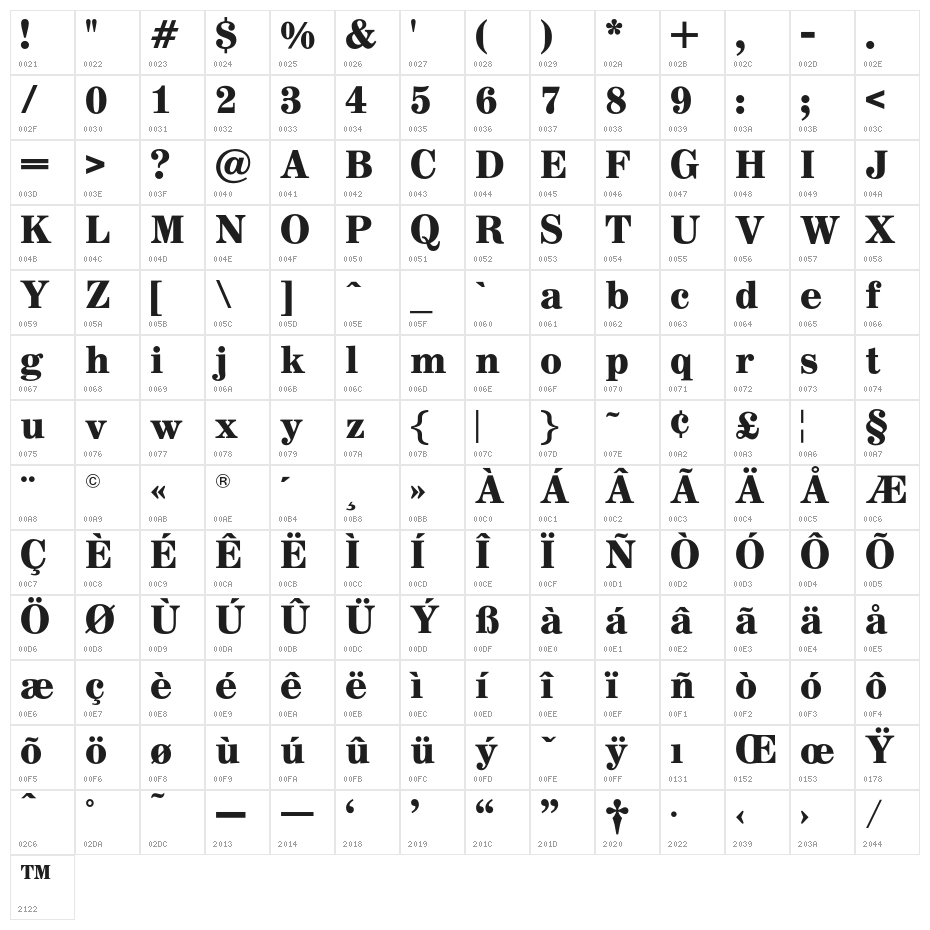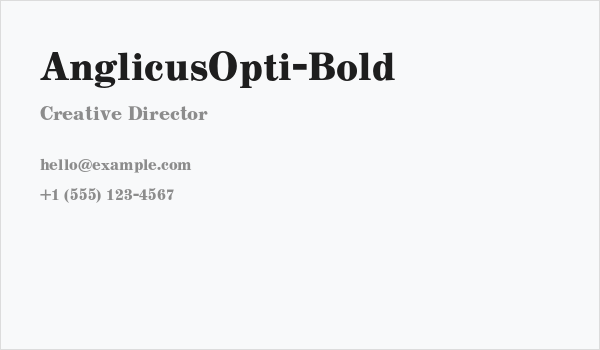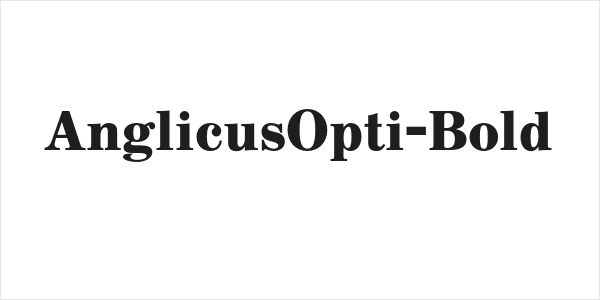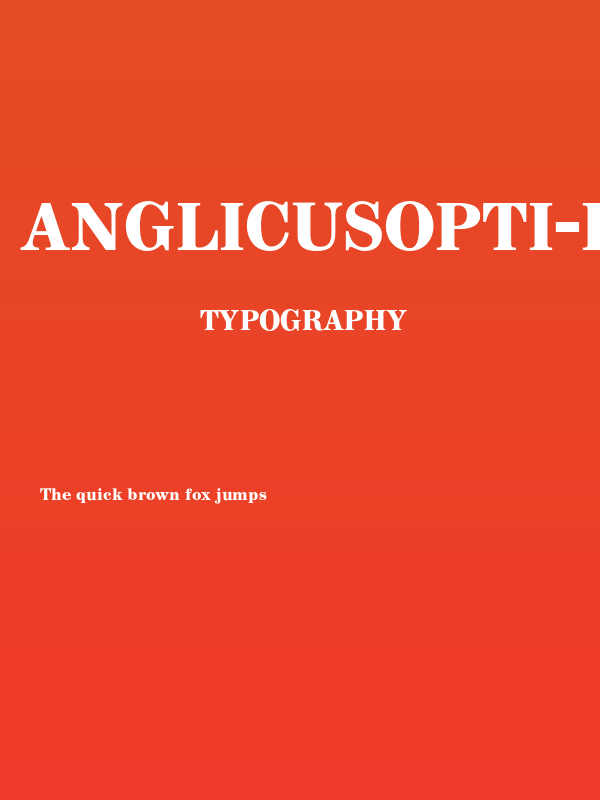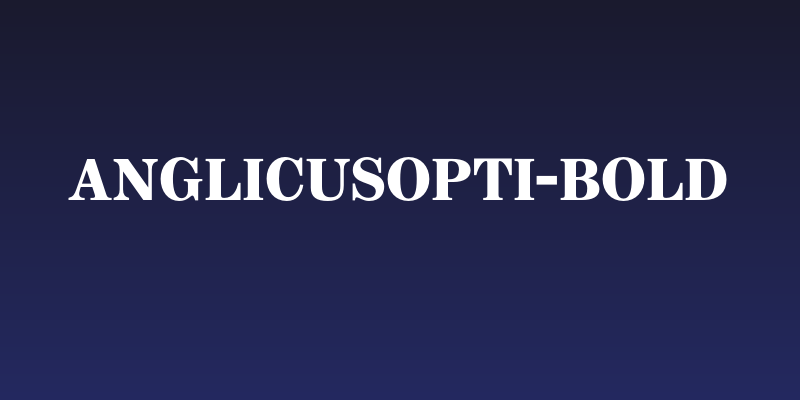
AnglicusOpti-Bold Font
AnglicusOpti-Bold Description
This font features a bold and commanding presence with its thick, strong strokes and high contrast between thick and thin lines. The serifs are pronounced, adding a classic and authoritative feel. The uppercase letters are robust and impactful, while the lowercase letters maintain a consistent weight, ensuring readability. The numerals are clear and well-defined, complementing the overall bold aesthetic. Special characters are designed with the same attention to detail, making them stand out effectively.
| Overall Style | Classic |
| Proposed Projects | Ideal for headlines, posters, branding materials, and any project requiring a strong, authoritative typeface. |